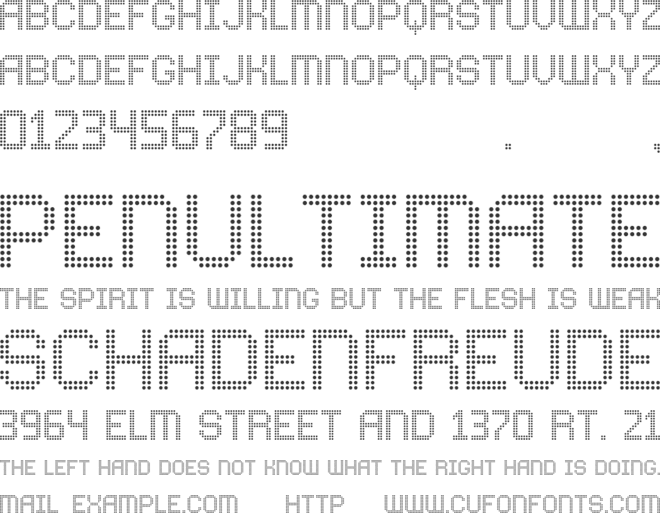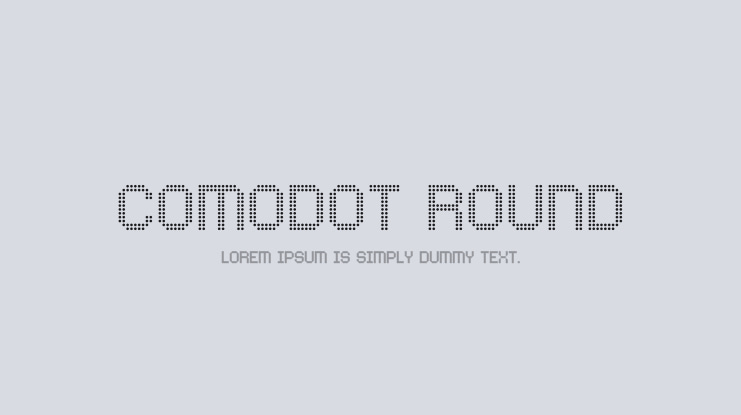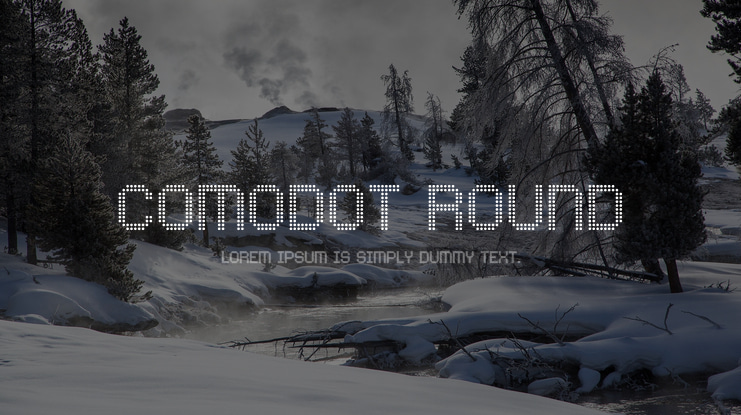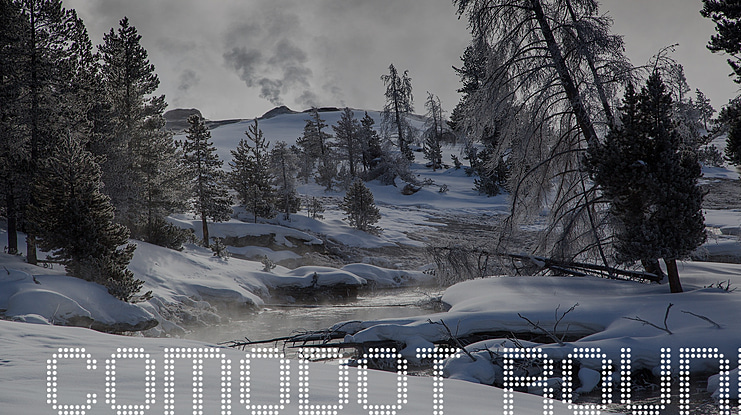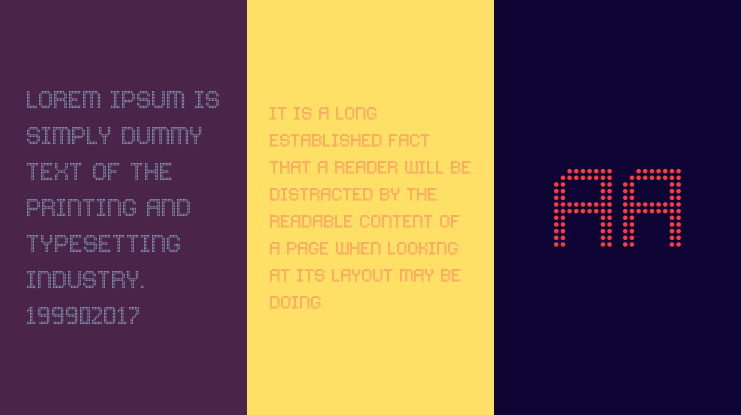
Comodot Round Font Family
Comodot is a minimalist layered font family with a pixelated yet sophisticated look.
You can either use just the top layer or top and bottom layer together to create a shadowed effect.
Comodot supports most Latin languages. It also comes with arrows and even some fun dingbats! (not included in this demo version)
This font is great for display purposes or even logos. Use it for headlines, posters, magazines, book covers, just anything that needs to stand out.